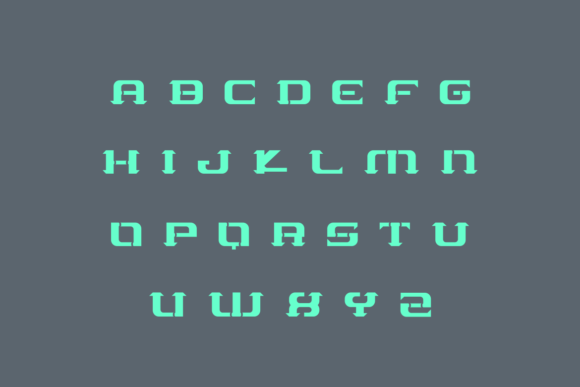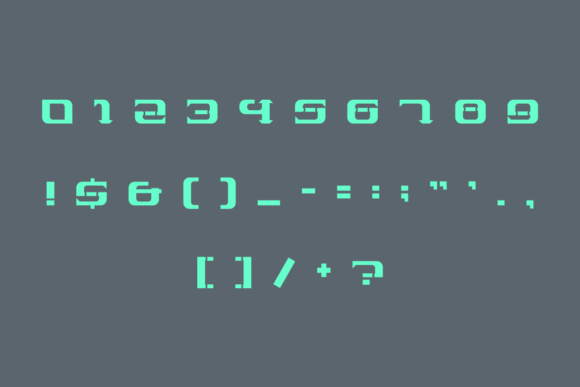
Introducing Dowar Font: The Ultimate Bold Display Font for Stunning Designs
In the world of design, typography plays a crucial role in conveying messages, expressing creativity, and capturing attention. When it comes to creating eye-catching logos, branding, and quotes, a bold and authentic display font is essential. This is where Dowar Font comes into play – a game-changing font that can elevate your designs to the next level. In this article, we’ll dive into the world of Dowar Font, exploring its unique features, benefits, and uses, making it a must-have for designers and crafters.
What is Dowar Font?
Dowar Font is an authentic, bold display font designed to make a statement. Its robust and striking appearance makes it perfect for creating stunning logos, branding materials, and quotes that demand attention. Each letter in the Dowar Font has a unique and beautiful touch, injecting life into your designs and setting them apart from the rest.
Key Features of Dowar Font
- Authentic and Bold: Dowar Font boasts an authentic and bold style, ideal for making a lasting impression.
- Unique Lettering: Every letter in the font has a distinct and beautiful touch, adding a touch of elegance to your designs.
- High-Quality Design: The font is crafted with precision and attention to detail, ensuring a high-quality appearance in all your designs.
Benefits of Using Dowar Font
So, why should you choose Dowar Font for your design projects? Here are some benefits that make it an excellent choice:
- Grabs Attention: The bold and striking appearance of Dowar Font ensures that your designs grab attention and leave a lasting impression.
- Enhances Branding: With its unique and beautiful lettering, Dowar Font can elevate your branding materials, making them more recognizable and memorable.
- Versatile: Dowar Font can be used across various design projects, from logos and quotes to posters and social media graphics.
Who Can Benefit from Dowar Font?
Dowar Font is a versatile font that can benefit a wide range of designers and crafters, including:
- Graphic Designers: Looking for a bold and authentic font to create stunning logos, branding materials, and quotes.
- Logotype Designers: Seeking a unique and beautiful font to craft memorable and eye-catching logos.
- Digital Artists: Wanting to add a touch of elegance and sophistication to their digital art.
- Crafters: Creating handmade products, such as cards, scrapbooks, and DIY crafts, that require a bold and eye-catching font.
Tips for Using Dowar Font Effectively
To get the most out of Dowar Font, here are some tips to keep in mind:
- Use it Sparingly: Dowar Font is bold and attention-grabbing, so use it sparingly to avoid overwhelming your design.
- Experiment with Colors: Try pairing Dowar Font with different colors to create a unique and eye-catching effect.
- Mix and Match: Combine Dowar Font with other fonts to create a visually appealing contrast.